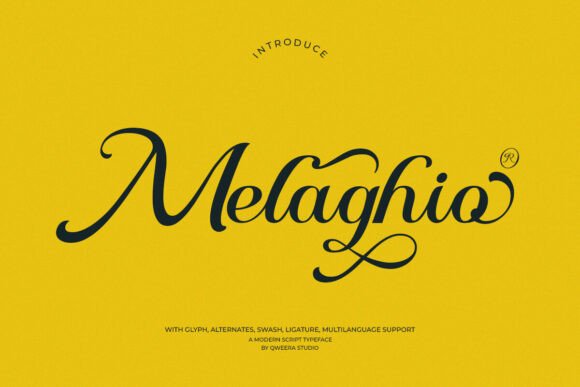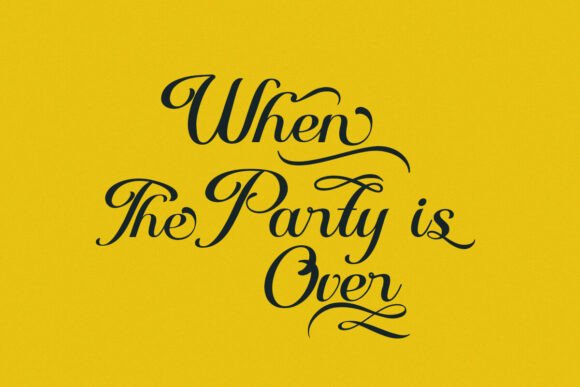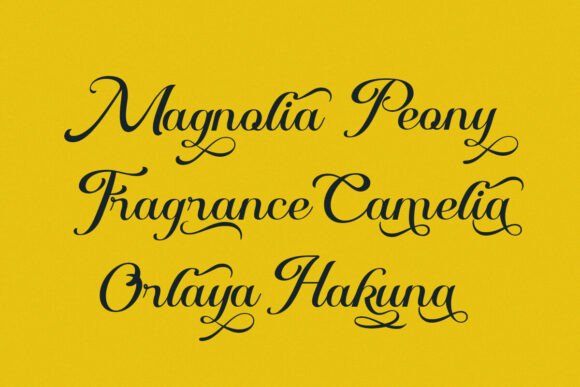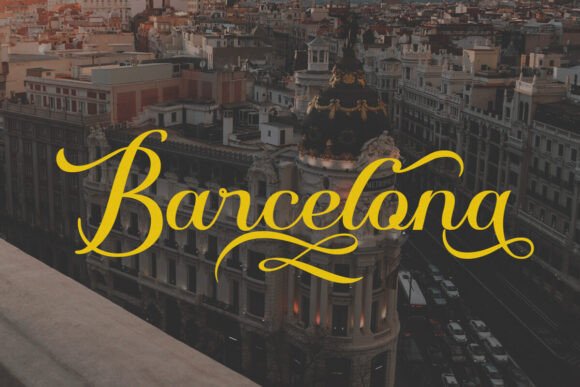
Melaghio Font
About the Melaghio Font
Discover the charm of Melaghio Font. This font is a perfect blend of modern aesthetics and classic appeal. Melaghio – Elegant Modern Script Font for Creative Designs
Melaghio is a sophisticated modern script font designed to bring elegance and style to your creative projects. Featuring alternates, ligatures, and swashes, this font offers flexibility and uniqueness, allowing users to customize designs effortlessly.
Perfect for branding, posters, magazines, and premium print materials, Melaghio adds a touch of class and refinement to any project. Its fluid strokes and stylish details create a luxurious and professional look, making it an ideal choice for high-end design needs.
Enhance your typography with Melaghio – where modern elegance meets timeless beauty!
Melaghio Font Usage Examples
Melaghio Font Example